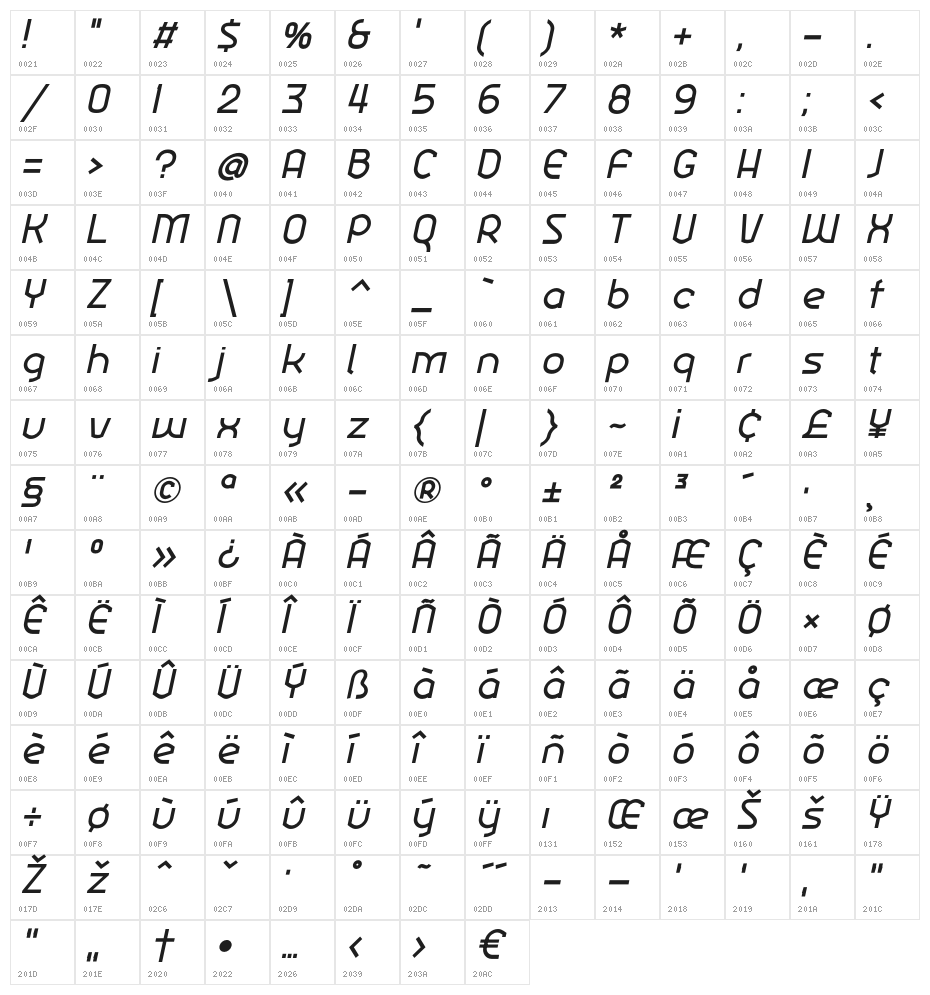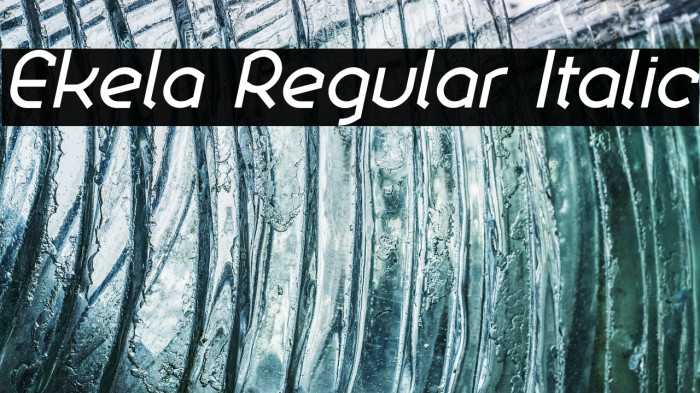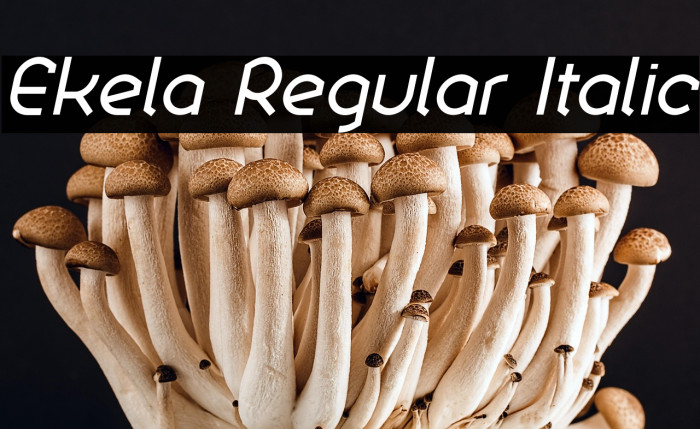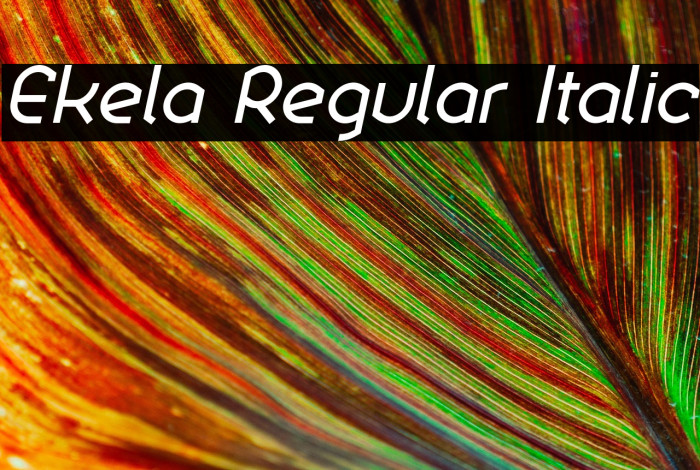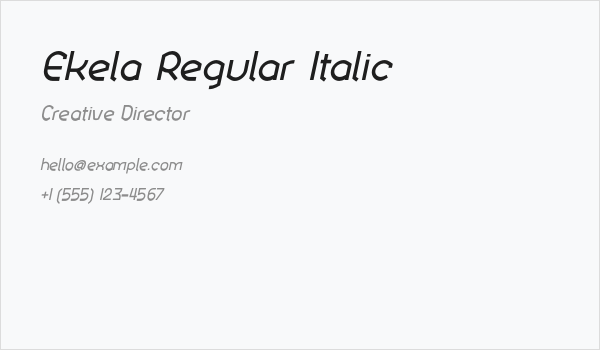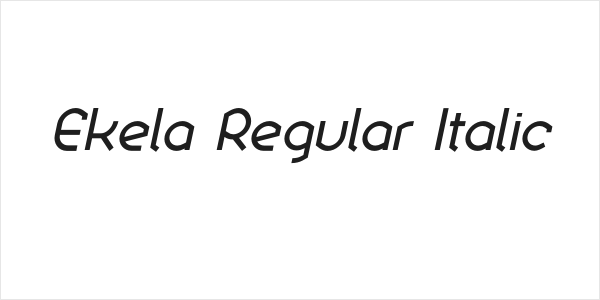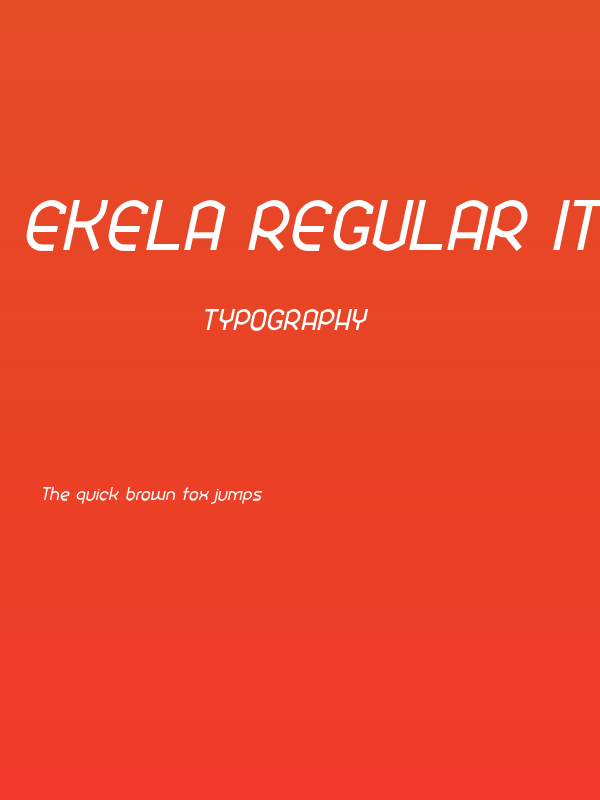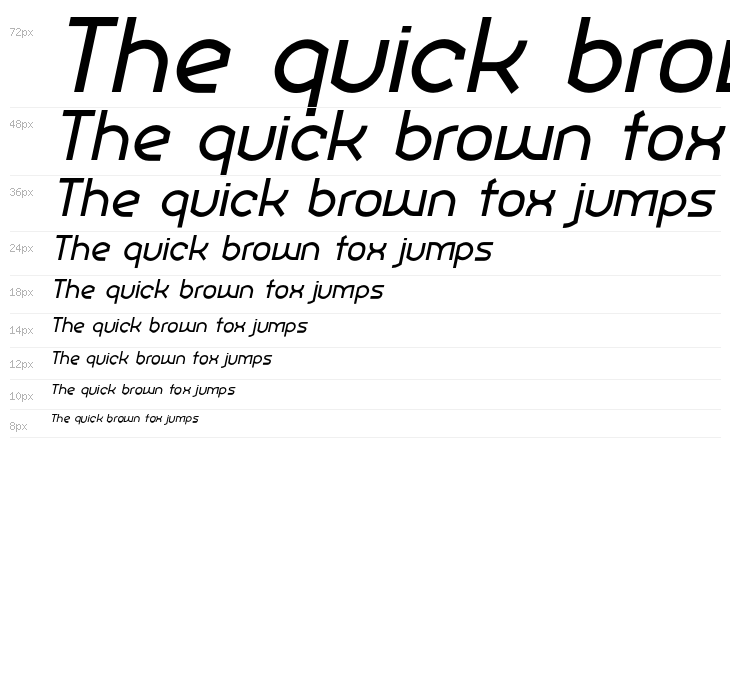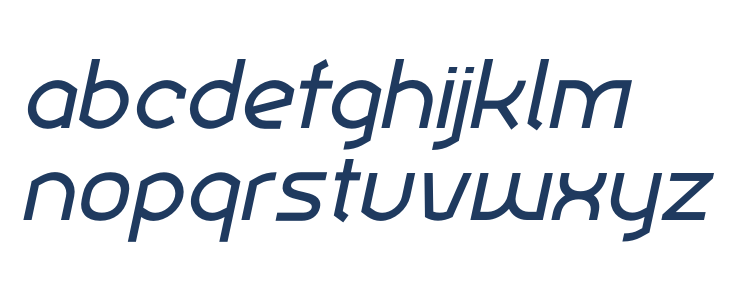
Ekela Regular Italic Font
Ekela Regular Italic Description
This font features a sleek and modern design with a slight italic slant, giving it a dynamic and forward-moving appearance. The characters are crafted with clean lines and a uniform stroke width, contributing to a sense of balance and readability. The uppercase letters are bold and assertive, while the lowercase letters maintain a consistent flow, enhancing the font's legibility. The numerals are distinct and well-proportioned, making them suitable for various applications. Special characters are included, maintaining the font's cohesive style. Overall, this font exudes a contemporary and professional vibe, making it versatile for both digital and print media.